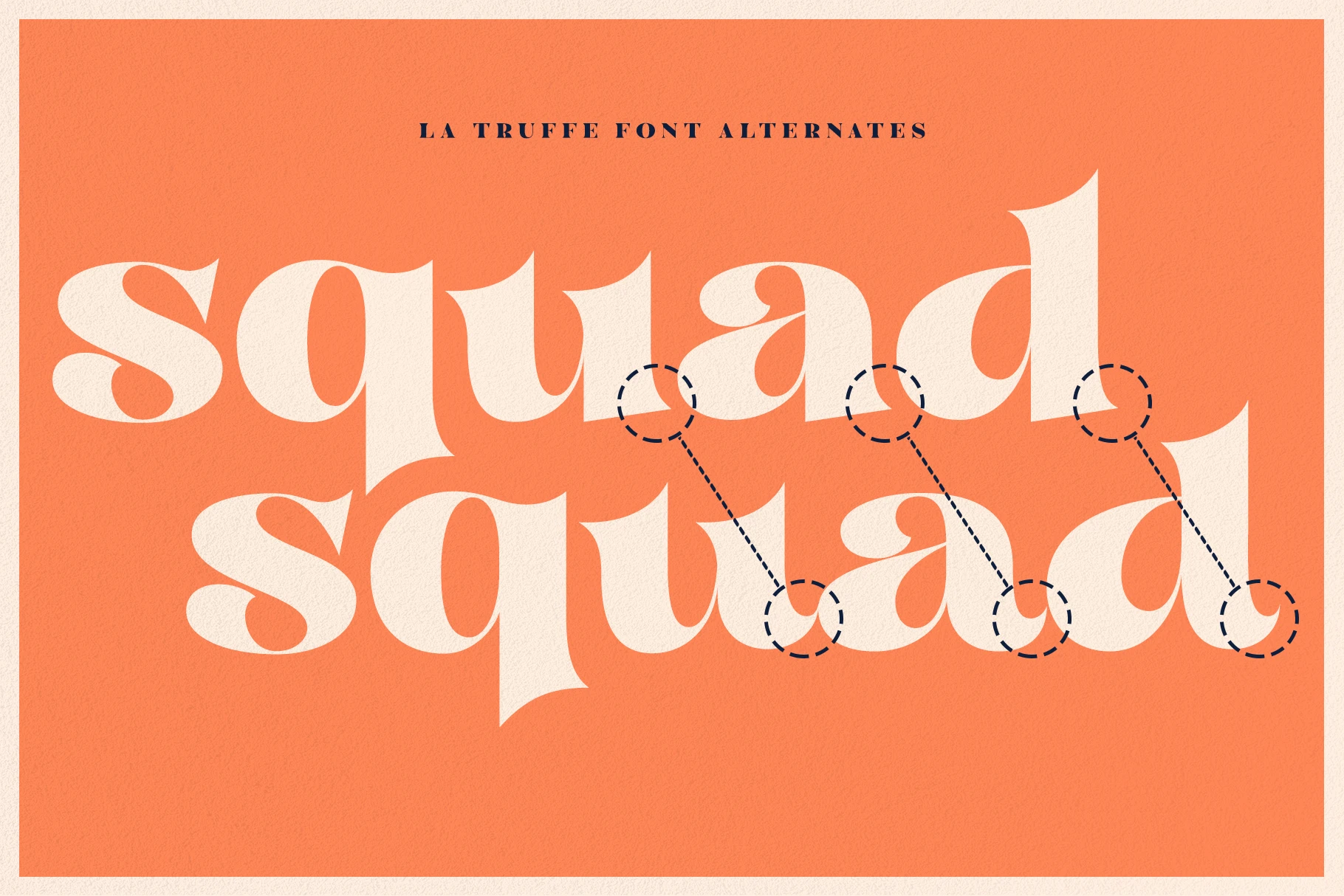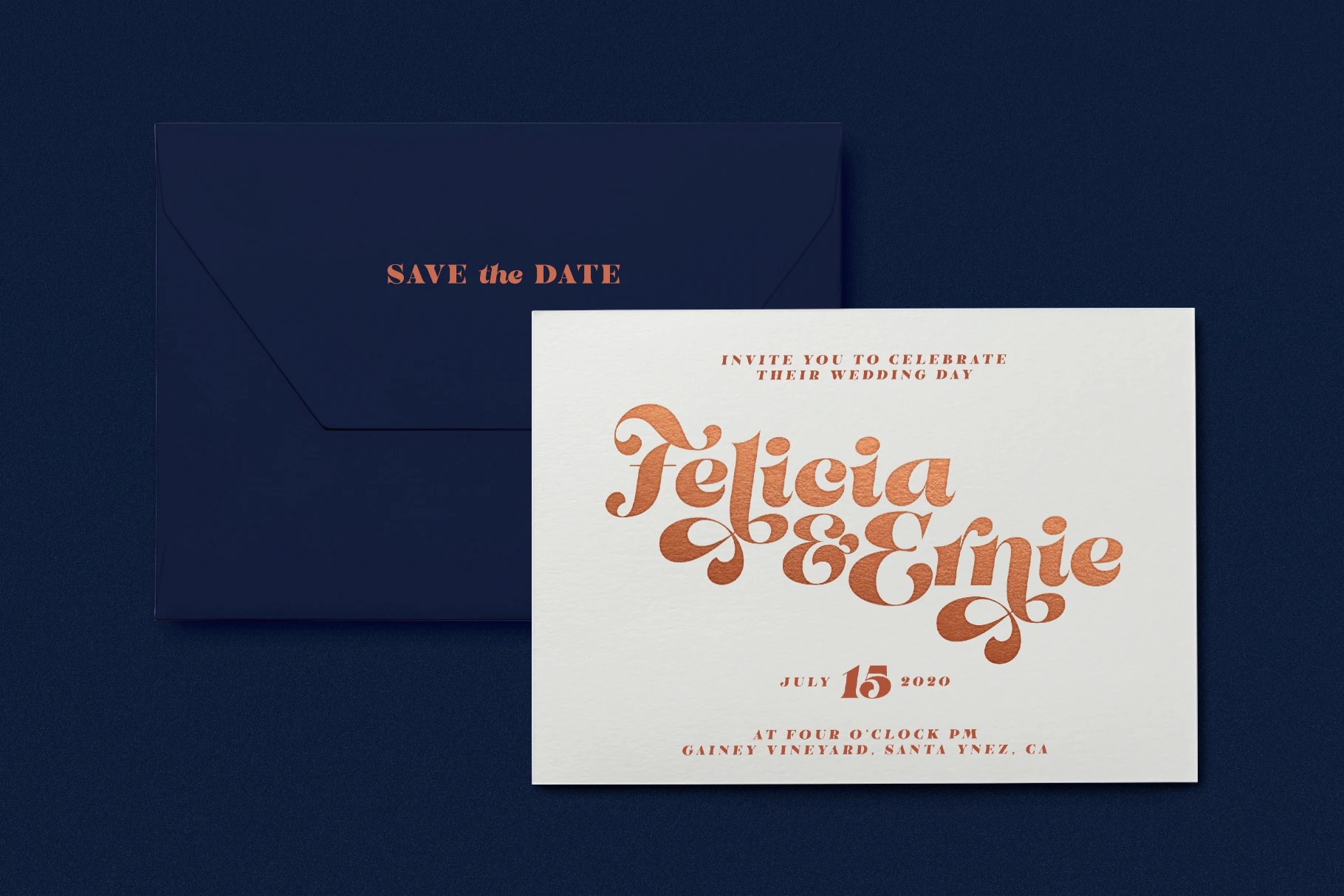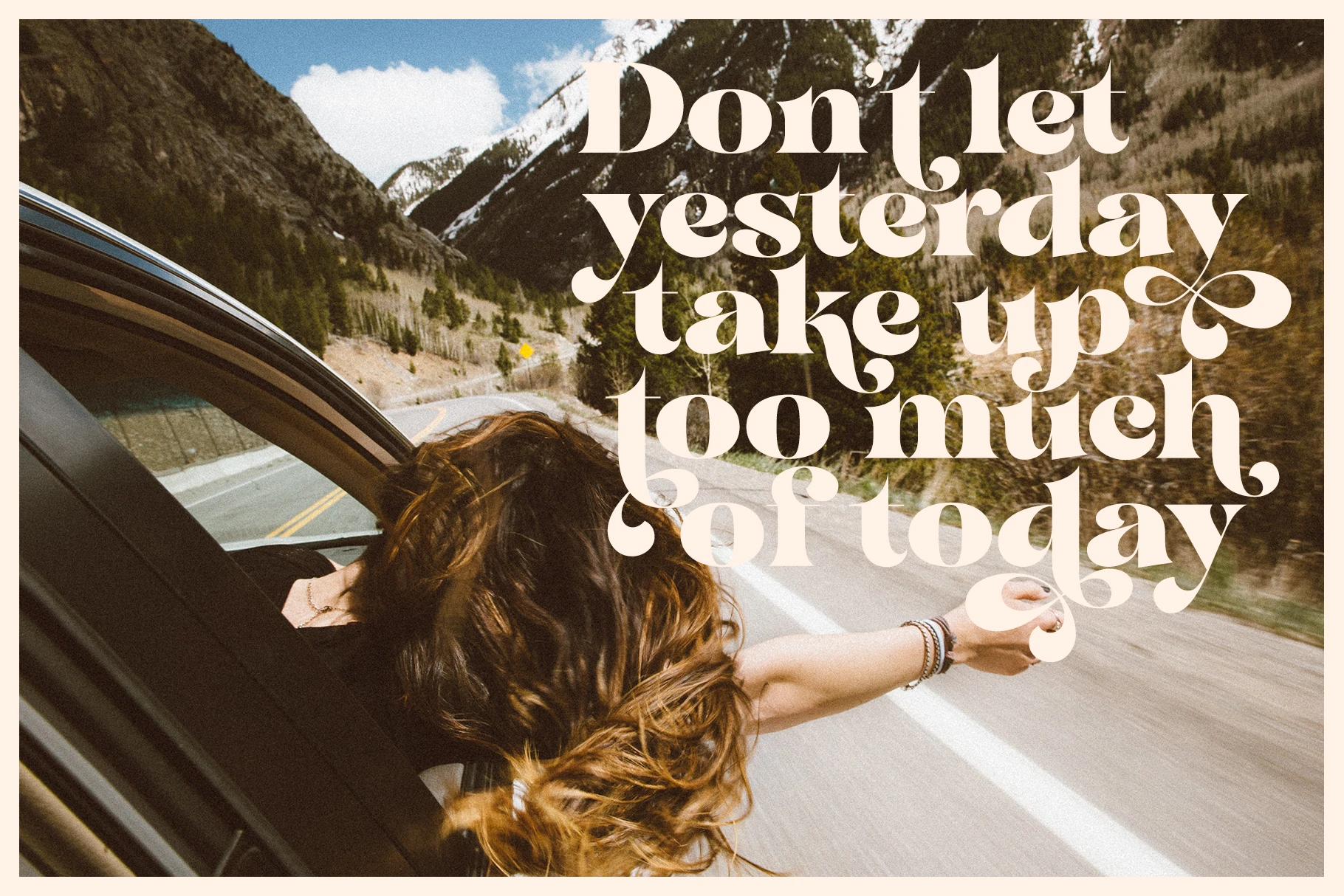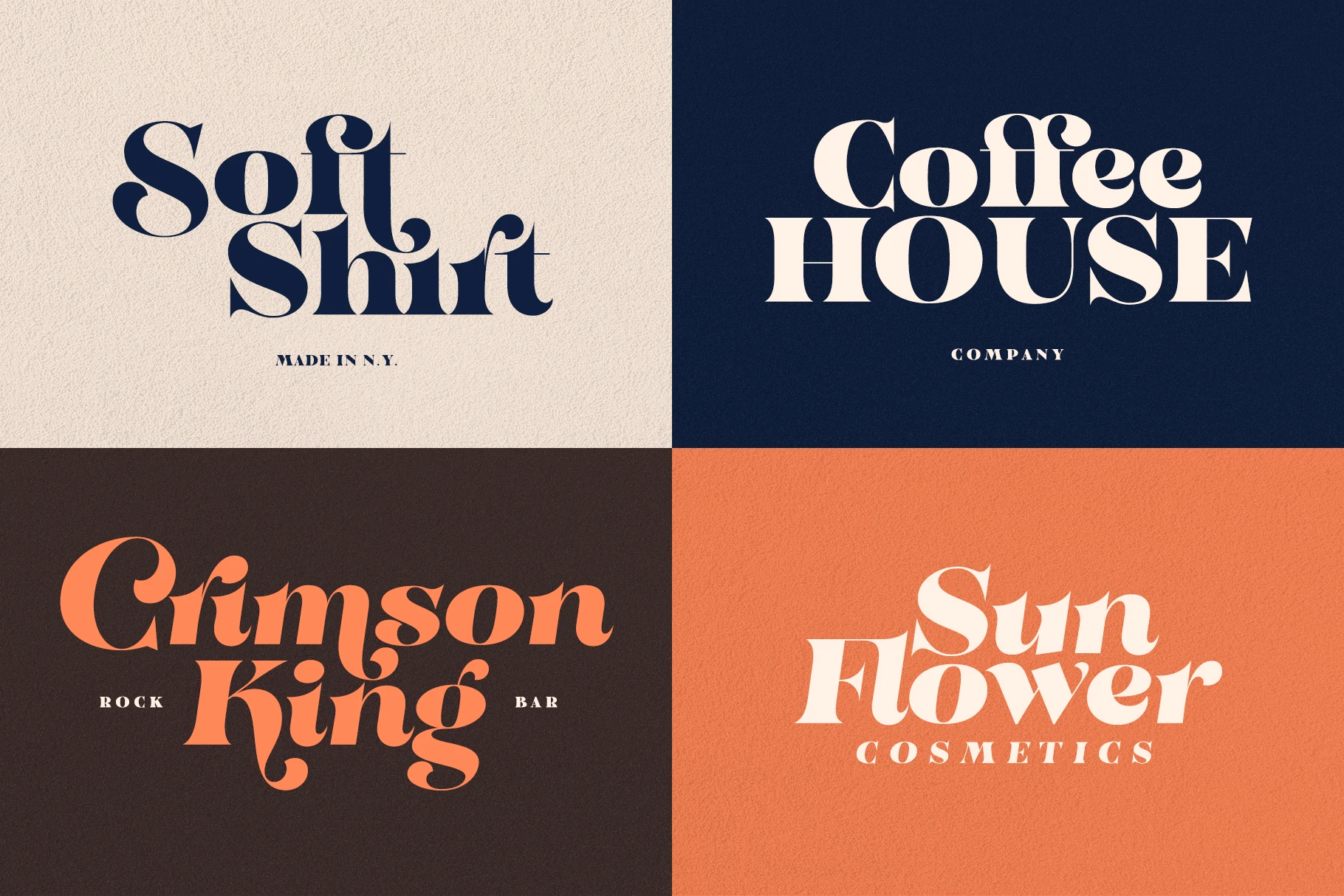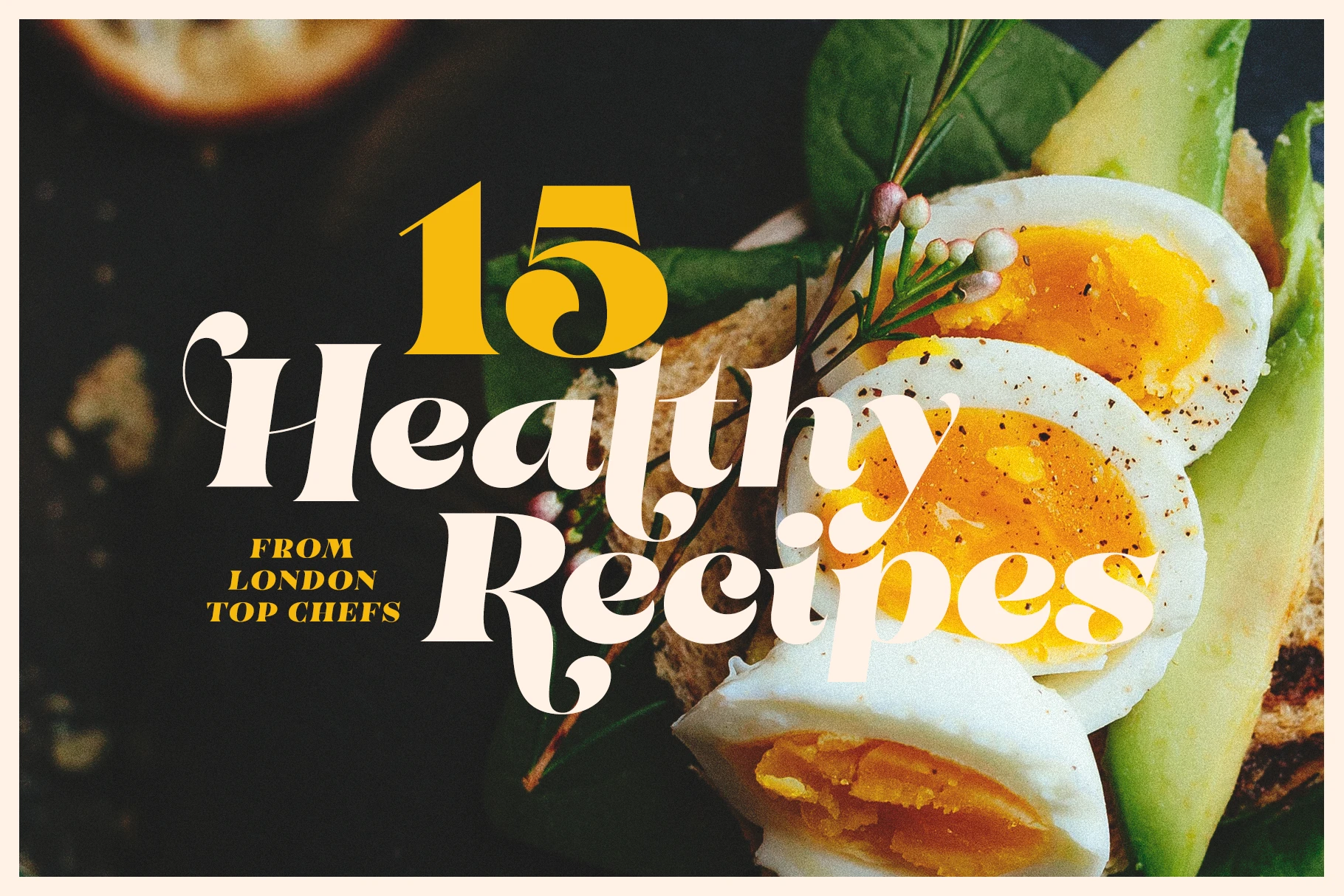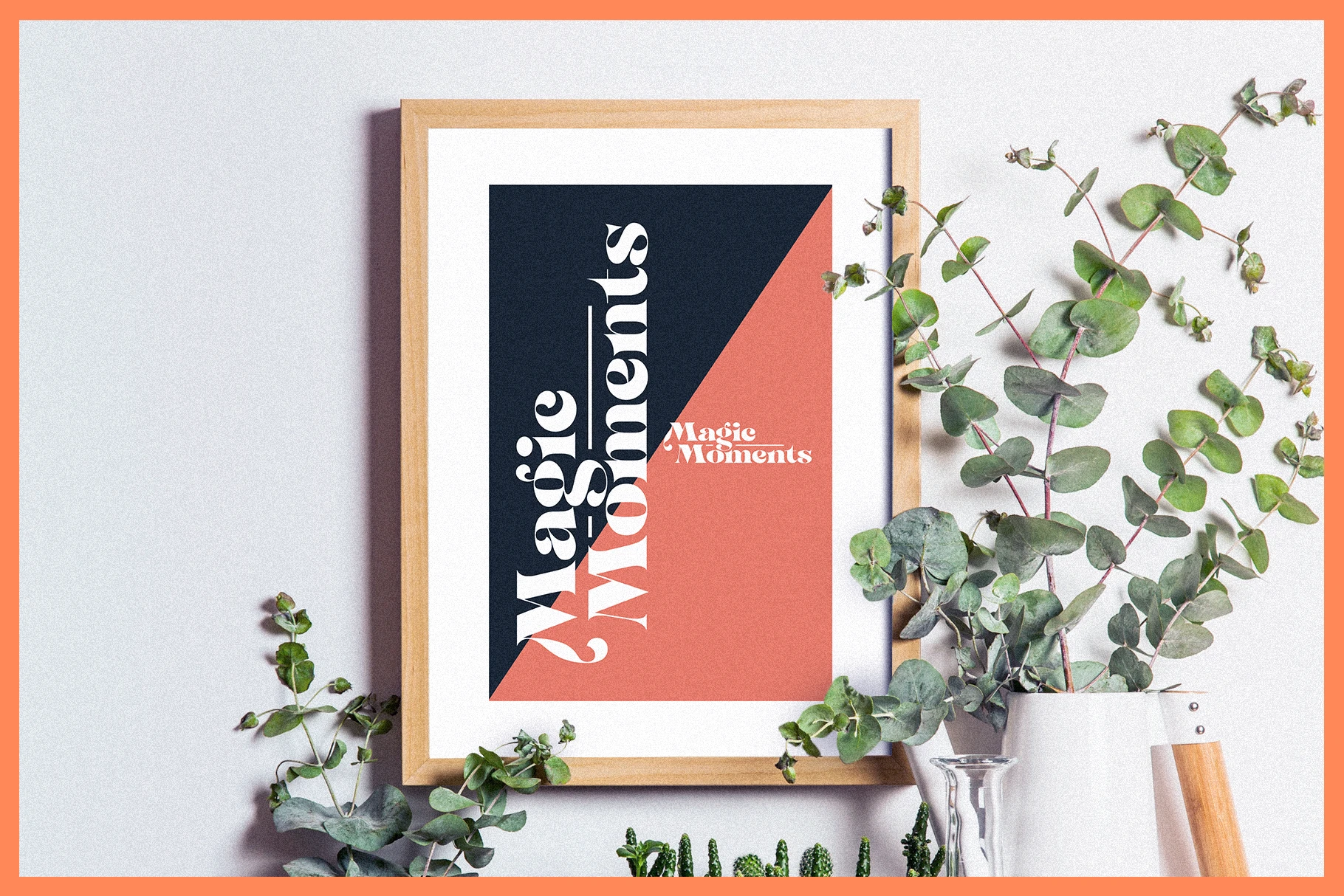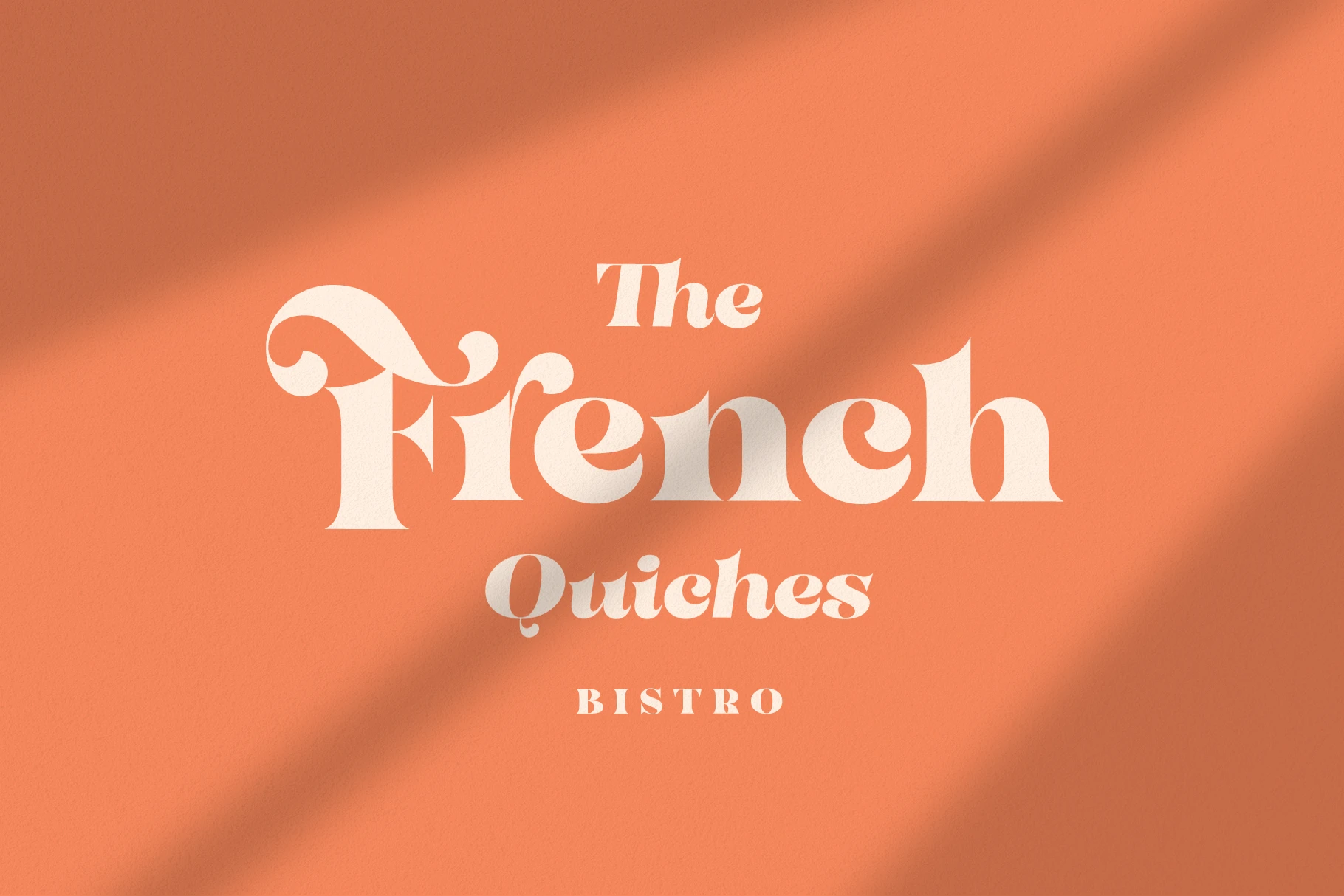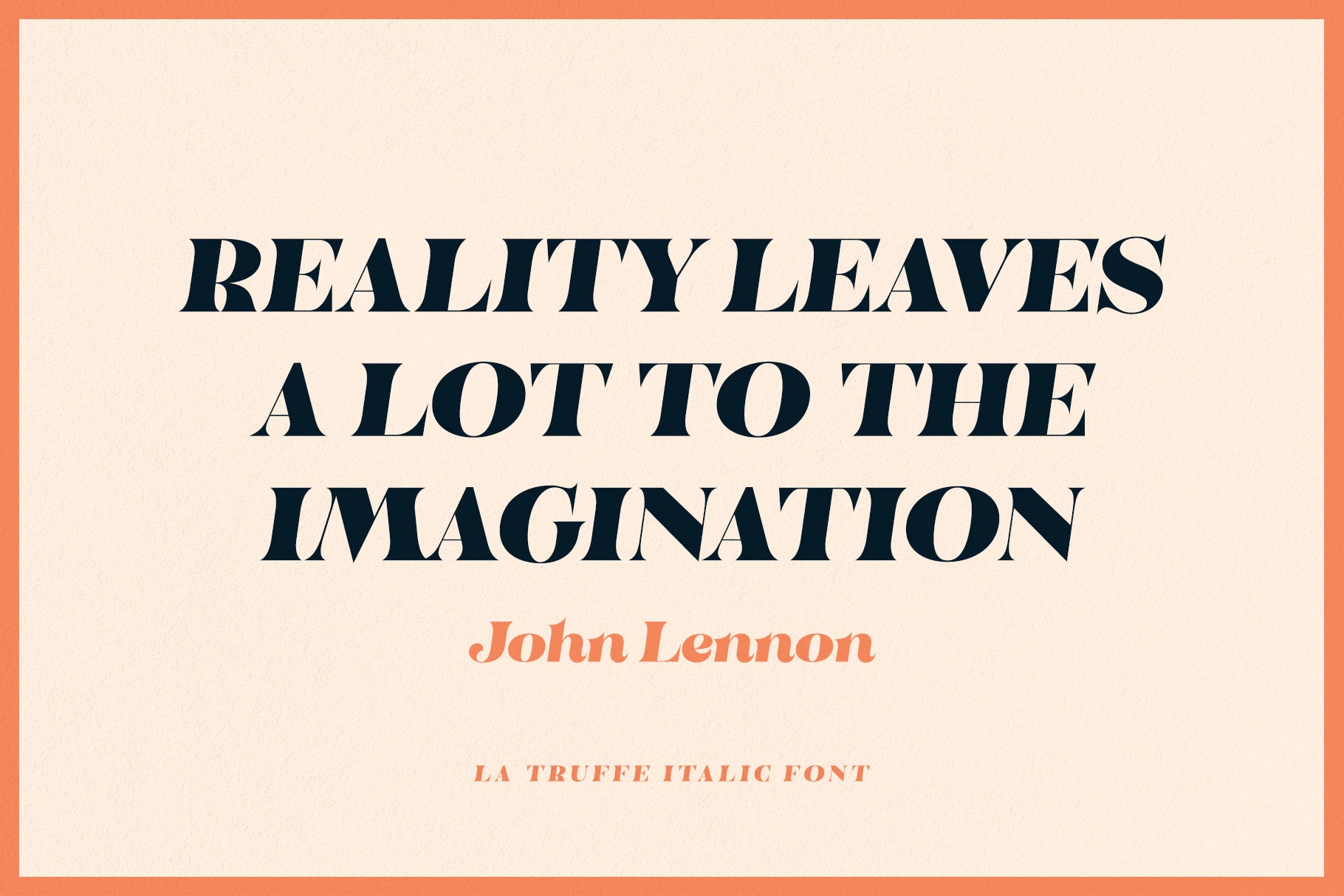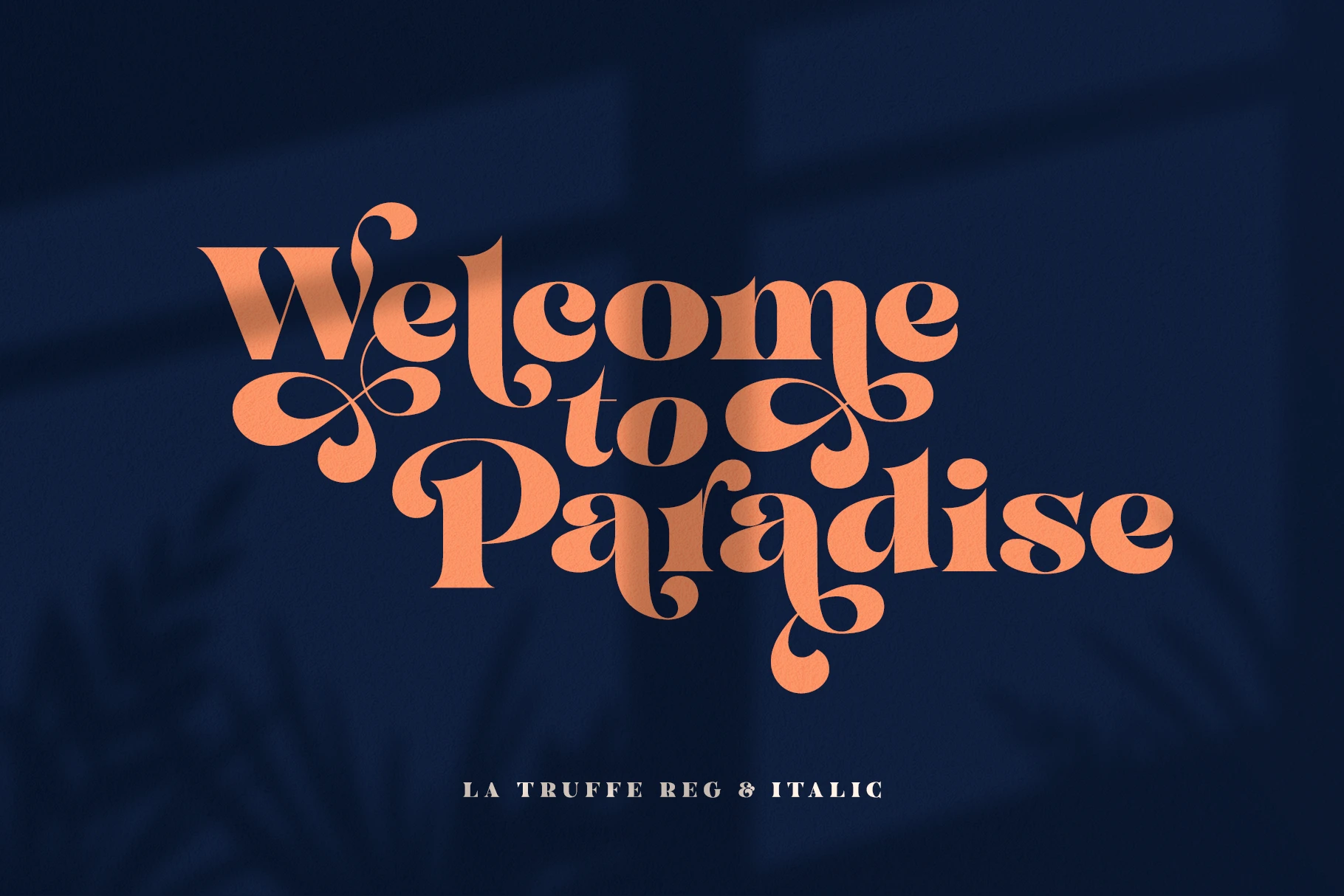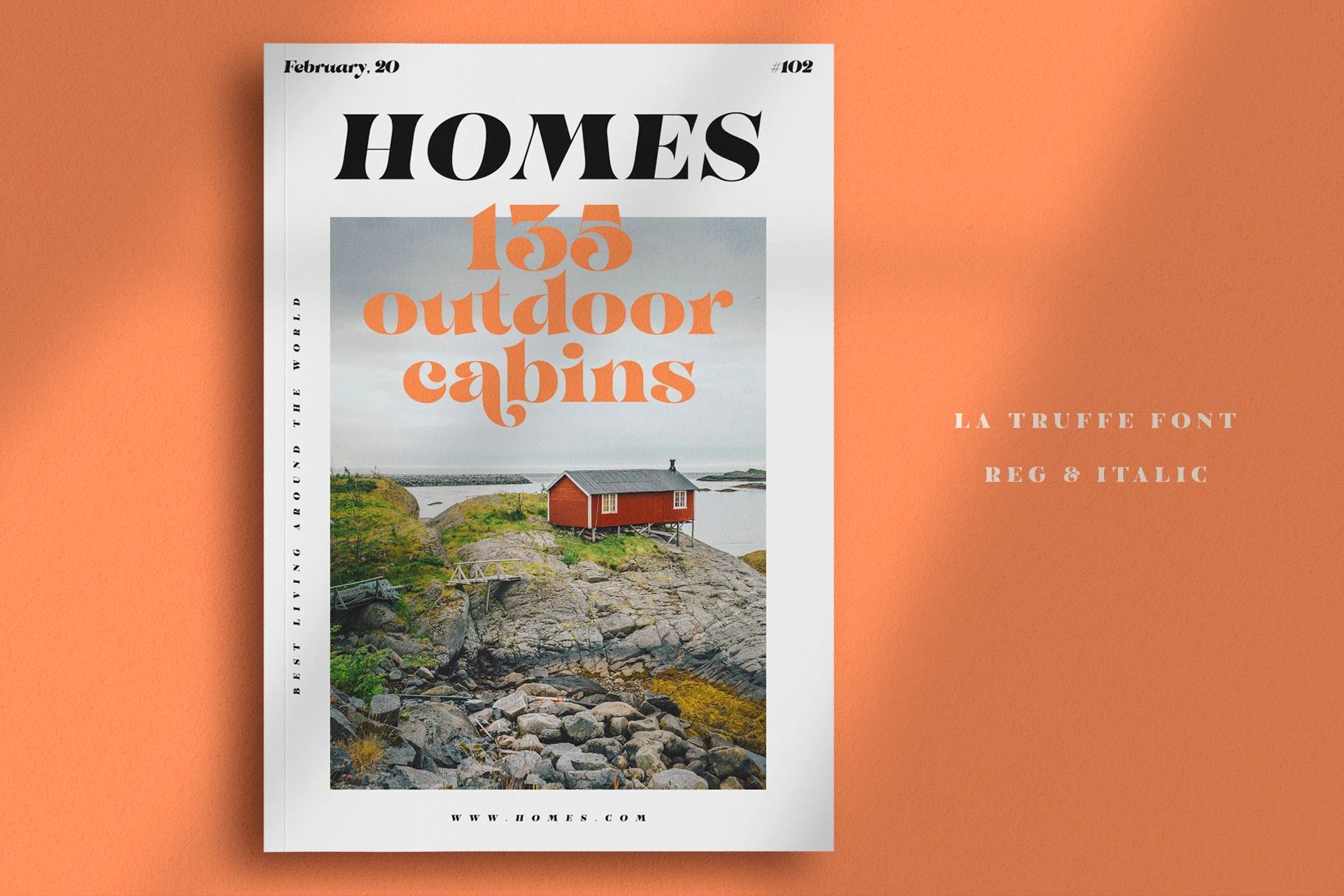
La Truffe Font Family
La Truffe is a stylish didone display typeface with high contrast and a refined structure. Available in Regular and Italic styles, it blends classic elegance with a modern edge. Designed to stand out with bold character and graceful calligraphic details. Ideal for projects that call for luxury and sophistication, such as gourmet food, fashion, beauty, cosmetics, and fragrances. Works beautifully in logos, signage, packaging, apparel, marketing materials, invitations, book covers, and social media graphics. Made for designs that need poise, personality, and visual impact.
• Common Ligatures
• Fractions
• Ordinal Numerals
• Stylistic Alternates
• Stylistic Sets
• Superscript